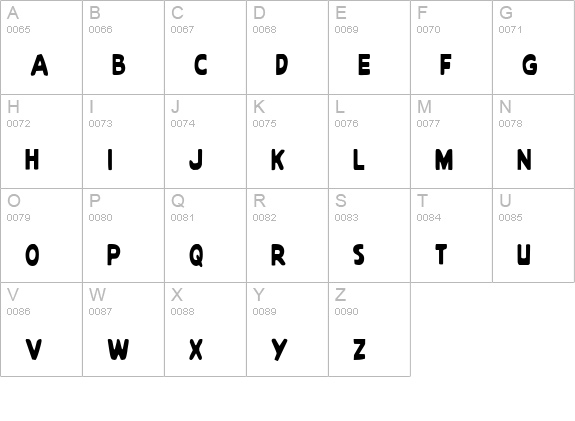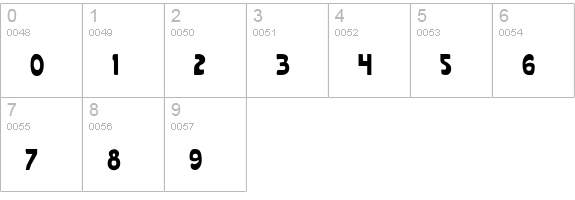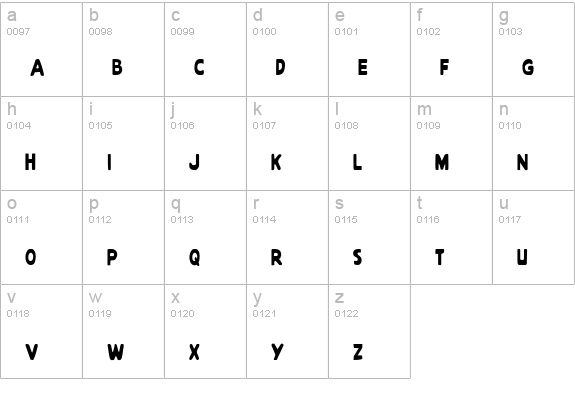
Quartermain Condensed Font Details
Quartermain Condensed is a distinctive, condensed-width variant in the Quartermain typeface family \xE2\x80\x94 well suited to design and typography projects.
Quartermain Condensed is a captivating and versatile font that exudes elegance and sophistication. With its sleek and streamlined design, this font is perfect for adding a touch of class to any project. Whether you're creating a professional presentation, designing a stylish logo, or crafting a refined invitation, Quartermain Condensed is the ideal choice. This font boasts clean lines and balanced proportions, giving it a timeless appeal that is both modern and classic. The condensed letterforms allow for efficient use of space, making it an excellent option for headlines, subheadings, and other areas where typographic real estate is limited. Quartermain Condensed is meticulously crafted, ensuring that every character is visually pleasing and harmonious with the overall design. The uppercase letters are bold and commanding, while the lowercase letters are elegant and refined. The result is a balanced and cohesive typeface that is both visually striking and highly legible. One of the standout features of Quartermain Condensed is its versatility. It can effortlessly adapt to a variety of design styles and contexts, making it a valuable asset for graphic designers, typographers, and creatives of all kinds. Whether you're aiming for a sleek and modern look or a vintage-inspired aesthetic, Quartermain Condensed can seamlessly integrate into your design. And the best part? Quartermain Condensed is freely available to download at FontsMarket.com. This means that you can easily access and use this stunning font without any cost. So whether you're a professional designer or a hobbyist looking to elevate your projects, Quartermain Condensed is the perfect font to add to your collection. In conclusion, Quartermain Condensed is a remarkable font that combines elegance, versatility, and accessibility. Its refined design and free availability make it a must-have for anyone looking to create visually stunning and impactful designs. So why wait? Download Quartermain Condensed today and unlock a world of design possibilities.